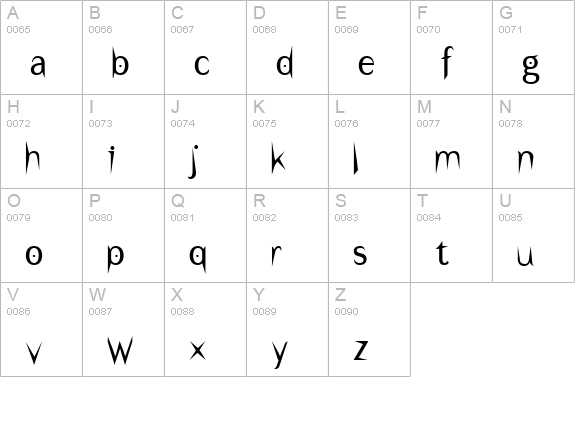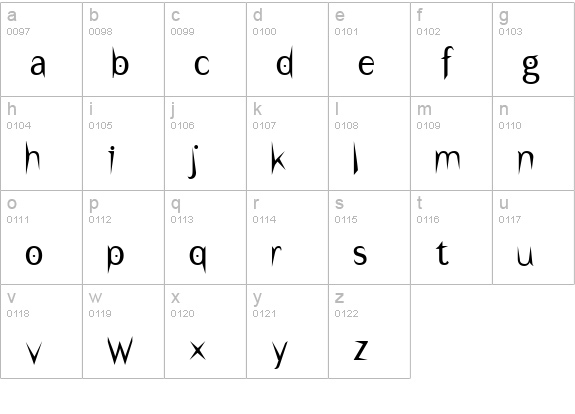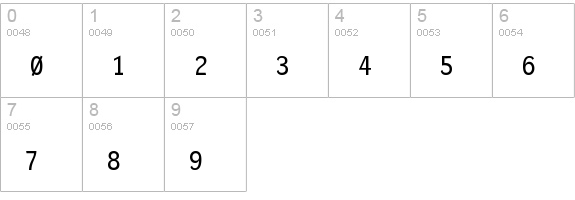
Under font is a modern and sleek typeface that exudes sophistication and elegance. Its clean lines and sharp edges make it perfect for a variety of design projects, from logos and branding to headlines and body text. With its versatile nature, Under font can easily adapt to different styles and themes, making it a must-have for any designer's toolkit. What sets Under font apart is not only its impeccable design, but also the fact that it is completely free. Yes, you heard that right – this stunning font can be downloaded at absolutely no cost! Whether you are a professional designer or just someone looking to add a touch of creativity to your personal projects, Under font is freely available to download at FontsMarket.com. But don't let its price tag fool you – Under font is anything but cheap. Its high-quality design and attention to detail rival that of premium fonts, making it a true gem in the world of typography. The characters are flawlessly crafted, with each letter perfectly balanced to create a harmonious composition. The font's legibility is exceptional, ensuring that your message will be conveyed clearly and effectively. With Under font, the possibilities are endless. Its versatility allows it to be used in a wide range of design applications, whether it be print, digital, or web. Whether you are designing a sleek corporate brochure, a trendy magazine layout, or a stylish website, Under font will elevate your design and give it a professional and polished look. So why wait? Experience the beauty and versatility of Under font for yourself. Download it for free today at FontsMarket.com and let your creativity soar. Whether you are a seasoned professional or a beginner in the world of design, Under font is sure to become your go-to choice for all your typographic needs. Don't miss out on this amazing opportunity to enhance your designs with a high-quality, free font.